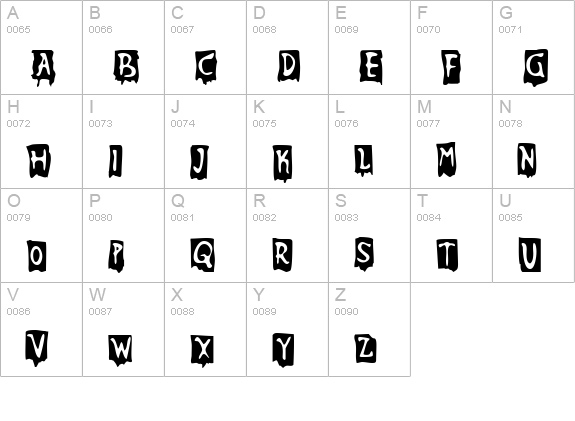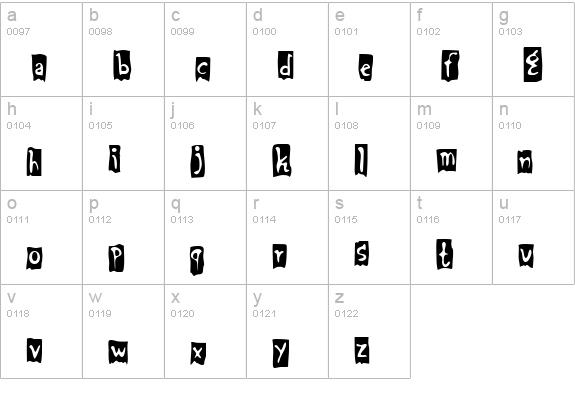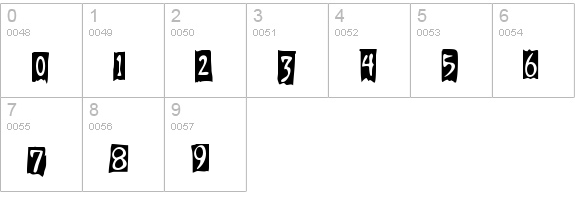
Beat My Guest font is a modern and stylish typeface that is sure to make a statement in any design project. With its bold and eye-catching appearance, this font is perfect for headlines, logos, posters, and more. The sleek lines and unique characters of Beat My Guest will add a touch of sophistication to your work. What makes this font even better is that it is freely available to download at FontsMarket.com. You can easily access this versatile font and start incorporating it into your designs today. Don't miss out on the opportunity to enhance your projects with the striking Beat My Guest font.